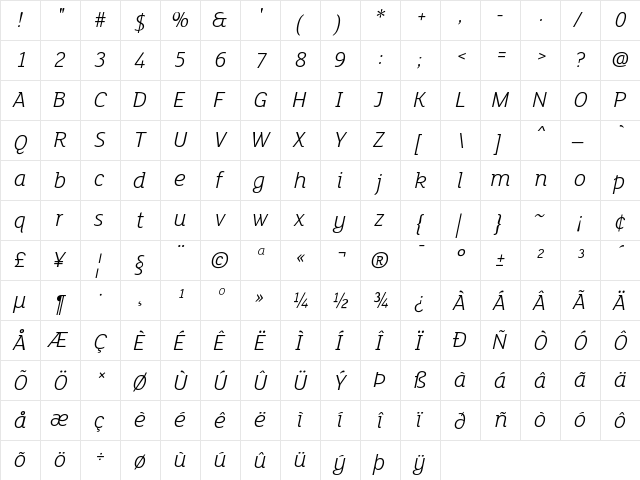
FS Lola Light Italic Regular
Design Context for FS Lola Light Italic Typeface
FS Lola Light Italic takes a measured approach to typography — its balanced proportions and neutral character make it a reliable workhorse for both digital and print work. The slanted form adds forward momentum and visual energy. Its slender proportions lend an understated elegance to any composition.